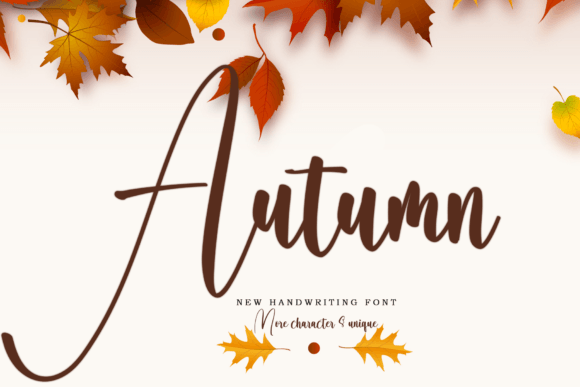
Introducing Autumn Font: Elevate Your Creative Projects with Modern Typography
As a designer, I’m sure you’ve been there – working on a project, pouring your heart and soul into every detail, and then getting stuck on one thing: finding the perfect font. I recall a particularly frustrating experience when a client asked for a modern, sleek typeface to complement their photography branding. After hours of searching, I stumbled upon a hidden gem that transformed the entire project. Today, I’m excited to share with you a similar treasure: the “Autumn Font”.
The Design Moment: A Story of Frustration and Triumph
I was working on a photography branding project, and the client wanted a font that would capture the essence of their creative journey. I tried numerous typefaces, but none seemed to fit the bill. That’s when I discovered Autumn Font. Its clean lines, sleek aesthetic, and versatility won me over. I knew I had to share it with fellow designers, crafters, and creative hobbyists.
• ✨ **Clean lines and sleek aesthetic**: Autumn Font’s modern design makes it perfect for photography branding, watermarking, and website design.
• ✅ **Versatility**: This font can be used for both digital and print projects, making it a great addition to your design toolkit.
• 💡 **OpenType features**: Autumn Font supports OpenType features, allowing you to access a range of glyphs and stylistic alternates.
⚠️ While Autumn Font is an excellent typeface, it’s not without its limitations. Some users may find that:
• 🤔 **Limited character set**: Autumn Font has a slightly limited character set, which may not be suitable for projects requiring extensive language support.
Autumn Font was designed by a team of typographers who sought to create a modern, versatile typeface that would complement visual artistry. Inspired by the changing seasons, they crafted a font that embodies the warmth and coziness of autumn. The result is a typeface that is both elegant and approachable, perfect for creative projects that require a touch of sophistication.
Q: What is Autumn Font?
A: Autumn Font is a modern, versatile typeface designed to complement visual artistry. It features clean lines, a sleek aesthetic, and OpenType features.
Q: Is Autumn Font suitable for body text?
A: While Autumn Font is primarily designed for headings and titles, it can be used for body text in certain contexts. However, its clean lines and sleek aesthetic may make it more suitable for display text.